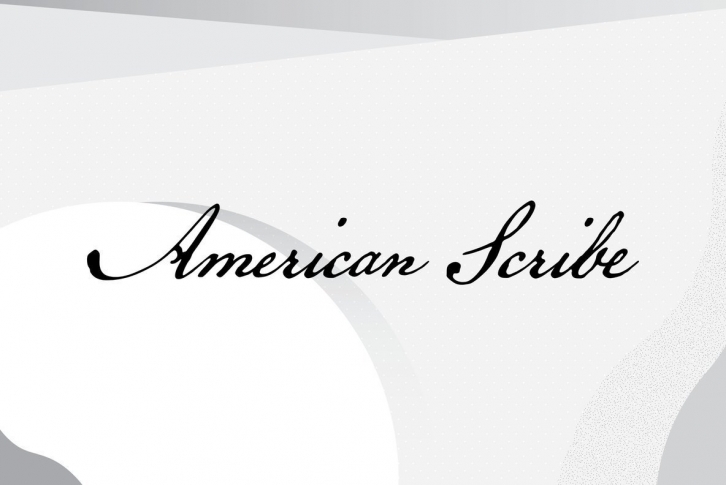
American Scribe simulates the penmanship of Timothy Matlack, generally agreed to be the scribe of the famous, engrossed copy of the Declaration of Independence (written, of course, by Thomas Jefferson). Matlack—whose clear, compact script is perhaps the most familiar handwriting in America—was an interesting man: an American patriot and former Quaker, kicked out of the church for fighting in the Revolution; he also sat as prosecutor at the court martial of Benedict Arnold.
Before penning the Declaration, he copied a number of documents for General George Washington. He lived well into his 90s. American Scribe seeks to replicate Matlack’s matchless script for a digital age. OpenType features include numerous ligatures, standard and contextual alternates, lining and old-style figures, and complete Central/Eastern European alphabets.